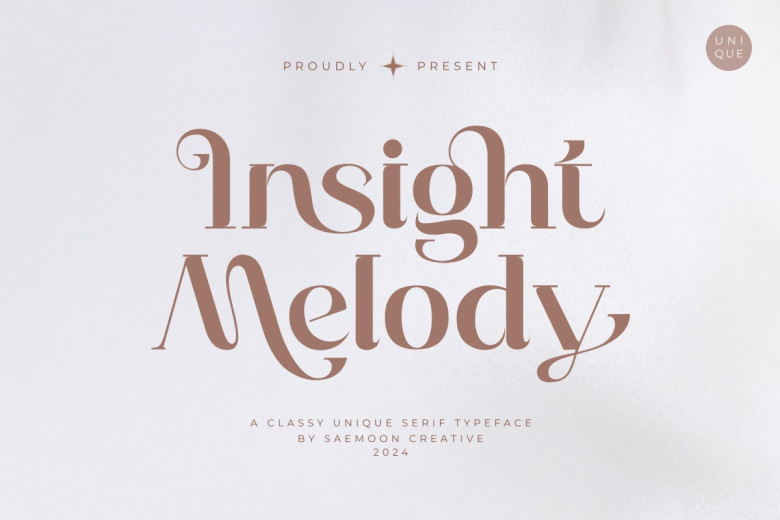
Insight Melody Font
“Insight Melody” font is an exquisite symbol. Every letter in this font has been meticulously hand-crafted for maximum harmony and design, captivating anyone who sees it. With its blend of classic styling with contemporary accents creating an atmosphere that exudes refinement while remaining original – this font stands alone among its peers!
Insight Melody Serif Font